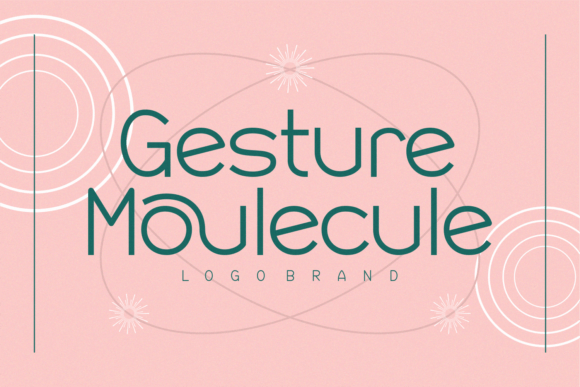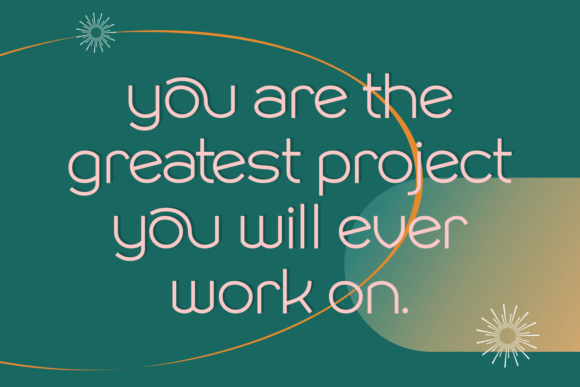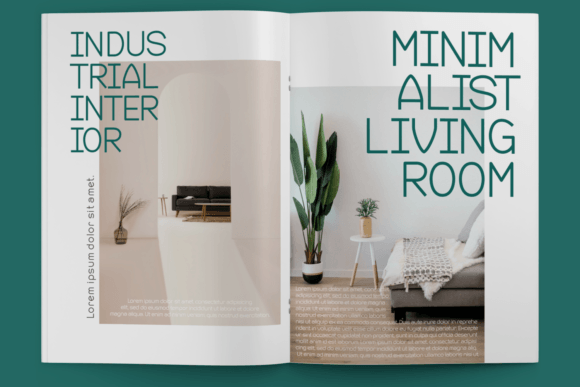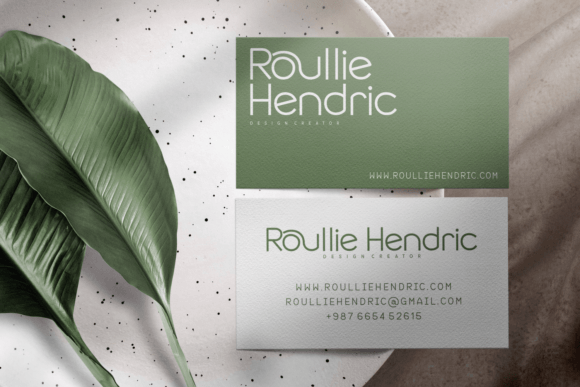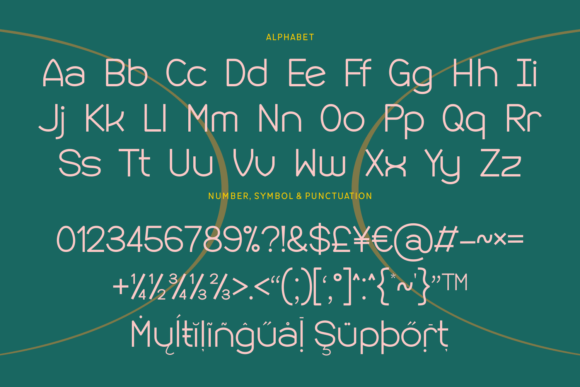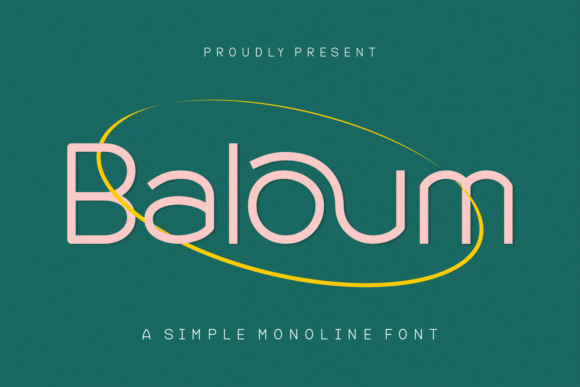
Baloum Font: Elevate Your Designs with Elegance and Modernity
In the world of typography, fonts play a crucial role in conveying the tone and aesthetic of a design. For designers and crafters seeking to add a touch of sophistication and modernity to their projects, the Baloum font is an excellent choice. This elegant and modern sans serif font has been gaining popularity for its delicate lines, beautiful rhythm, and versatility in various design applications.
Characteristics of Baloum Font
Baloum is a sans serif font, which means it doesn’t have the small lines or flourishes at the ends of the letters, giving it a clean and minimalist look. Despite its simplicity, Baloum boasts a unique elegance that sets it apart from other fonts in its category. Its delicate lines and beautiful rhythm make it perfect for designs that require a touch of sophistication.
Uses of Baloum Font
The Baloum font is incredibly versatile and can be used in a wide range of design projects, including:
- Wedding Invitations: Add a touch of elegance and romance to your wedding invitations with Baloum. Its delicate lines and beautiful rhythm make it perfect for conveying the joy and sophistication of the occasion.
- Thank You Cards: Express your gratitude in style with Baloum. This font is ideal for creating beautiful and heartfelt thank you cards that will leave a lasting impression.
- Quotes: Baloum is perfect for highlighting inspirational quotes, making them stand out with its elegant and modern aesthetic.
- Greeting Cards: Whether it’s a birthday, anniversary, or holiday greeting, Baloum adds a touch of sophistication and elegance to your cards.
- Logos: For businesses looking for a modern and chic logo, Baloum can be a great choice. Its clean lines and minimalist aesthetic make it perfect for creating a professional and elegant logo.
- Business Cards: Make a great impression with Baloum on your business cards. This font exudes professionalism and elegance, making it ideal for networking and business purposes.
- Websites: Baloum can also be used on websites to add a touch of elegance and modernity to your content. Its clean and minimalist aesthetic makes it easy to read and visually appealing.
Why Choose Baloum Font?
There are several reasons why Baloum font should be your go-to choice for your design projects:
- Elegance and Modernity: Baloum brings a level of sophistication and modernity to your designs that is hard to achieve with other fonts.
- Versatility: From wedding invitations to logos, Baloum can be used in a variety of design projects, making it a valuable addition to your font library.
- Easy to Read: Despite its elegant and delicate lines, Baloum is easy to read, making it perfect for both print and digital designs.
Baloum font is a beautiful and modern sans serif font that can elevate your designs with its elegance and sophistication. Whether you’re a designer working on a client’s project or a crafter making personalized items, Baloum is a versatile and stylish choice. Its delicate lines, beautiful rhythm, and PUA encoding make it perfect for a wide range of applications, from wedding invitations and greeting cards to logos and websites. By choosing Baloum, you’re ensuring that your designs stand out with a touch of modernity and elegance.
So, if you’re looking to add a chic and modern touch to your designs, consider giving Baloum font a try. Its unique aesthetic and versatility make it a valuable addition to any designer’s or crafter’s toolkit.